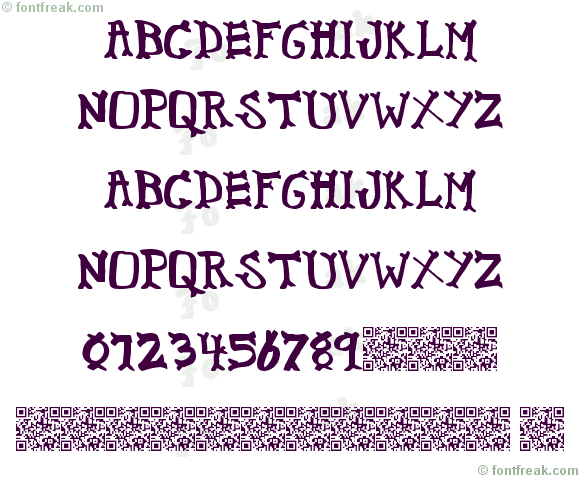
CrispyBones
CrispyBones, designed by Xerographer Fonts in 2015, is a unique decorative typeface that captures attention with its playful and whimsical style. This font falls into the display category, making it ideal for projects that require a bold statement. The visual characteristics of CrispyBones are defined by its irregular, bone-like shapes that evoke a sense of fun and creativity. The stroke weight is uneven, adding a hand-crafted feel, while the contrast between thick and thin lines enhances its distinctive character. The spacing is fairly tight, which helps create a cohesive look, even with its eccentric shapes.
CrispyBones is perfect for a variety of specific use cases. It's a fantastic choice for Halloween-themed invitations or party flyers, where its quirky design can set the right mood. Additionally, it works well for children's book covers, adding an element of playfulness that appeals to younger audiences. Graphic designers may also find CrispyBones suitable for merchandise branding, particularly for products aimed at a youthful demographic. Restaurant menus that wish to convey a fun and casual atmosphere can also benefit from this typeface.
The target audience for CrispyBones includes graphic designers, small business owners, content creators, and anyone looking to add a touch of whimsy to their projects. Its free availability as a freeware license means it is accessible to a broad spectrum of users.
What sets the CrispyBones font apart is its ability to blend creativity with functionality. Its unique design not only captures attention but also conveys a sense of joy and playfulness, making it a memorable choice for any visual project. For those interested, the CrispyBones font free download is readily available, allowing creatives to easily incorporate this distinctive typeface into their work.